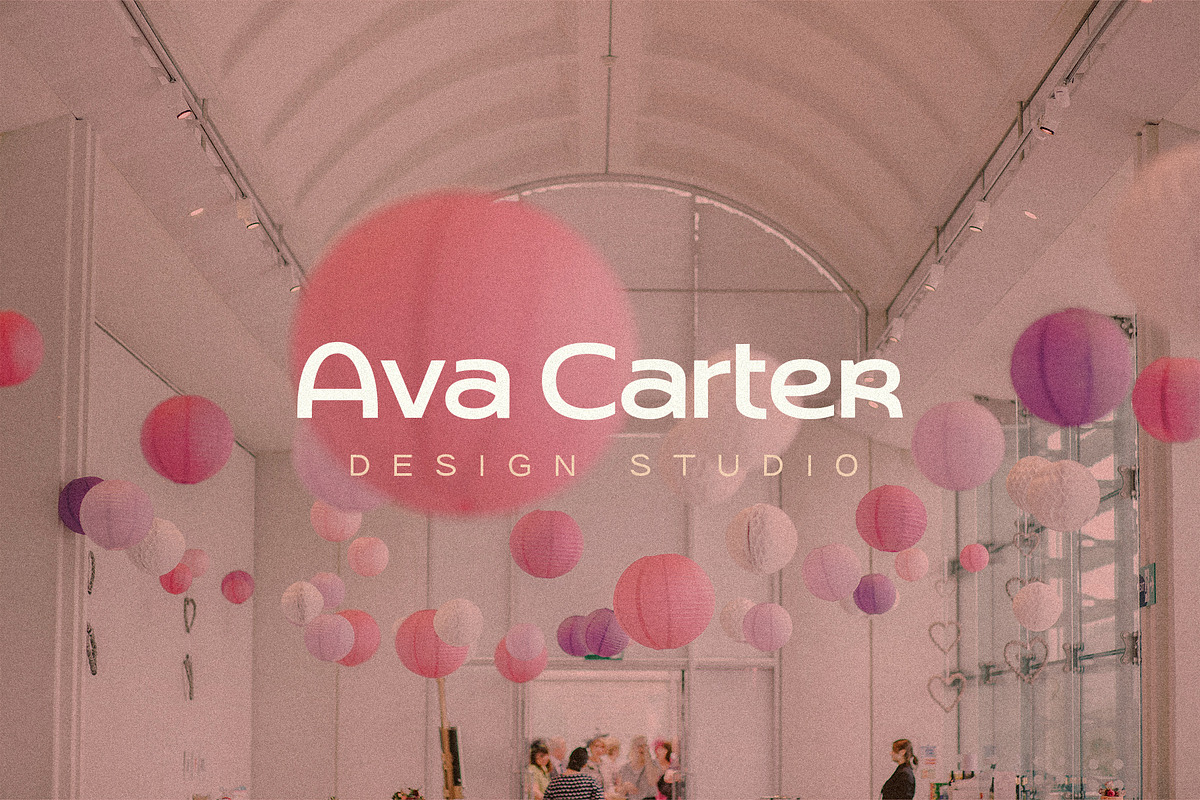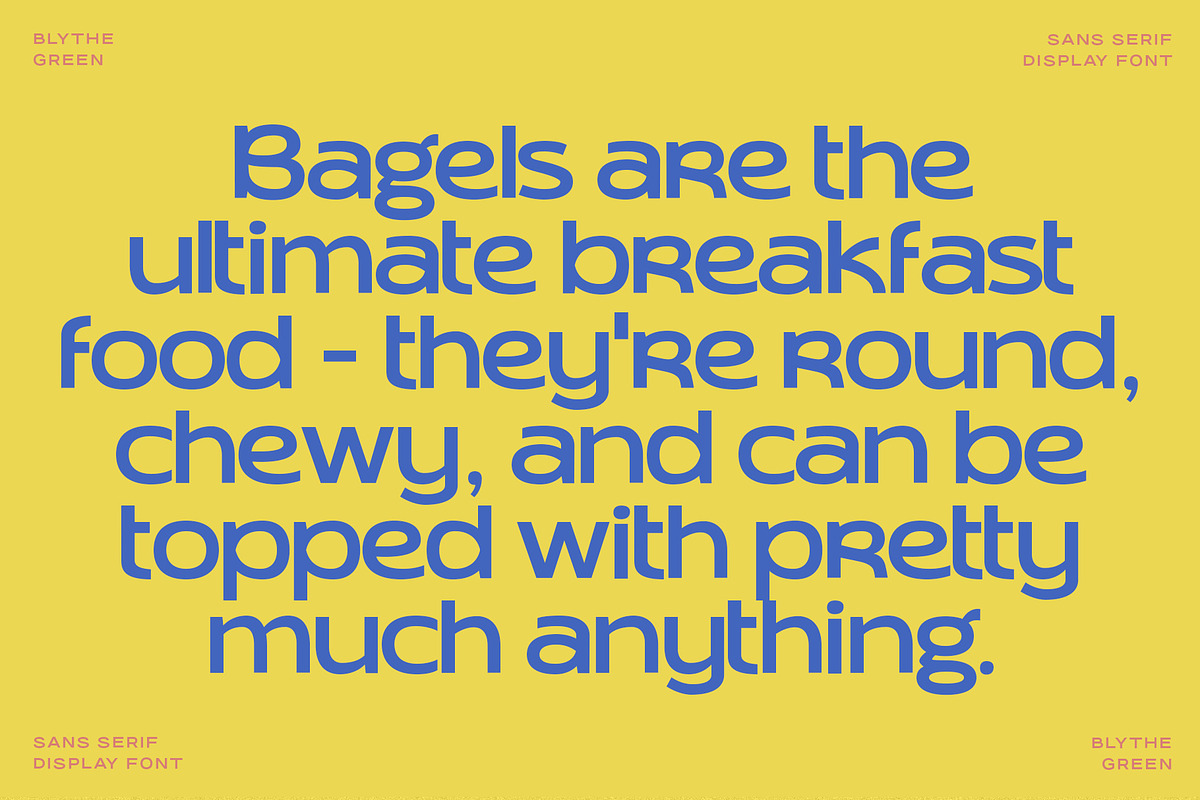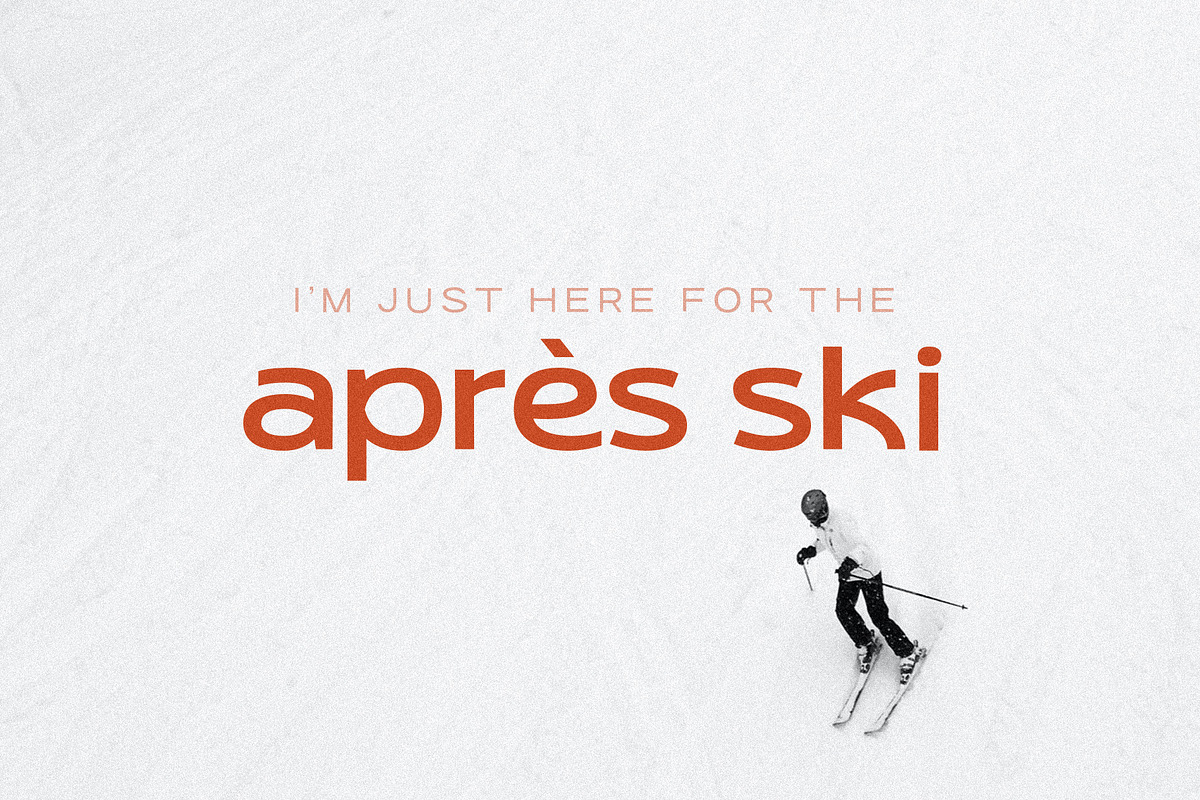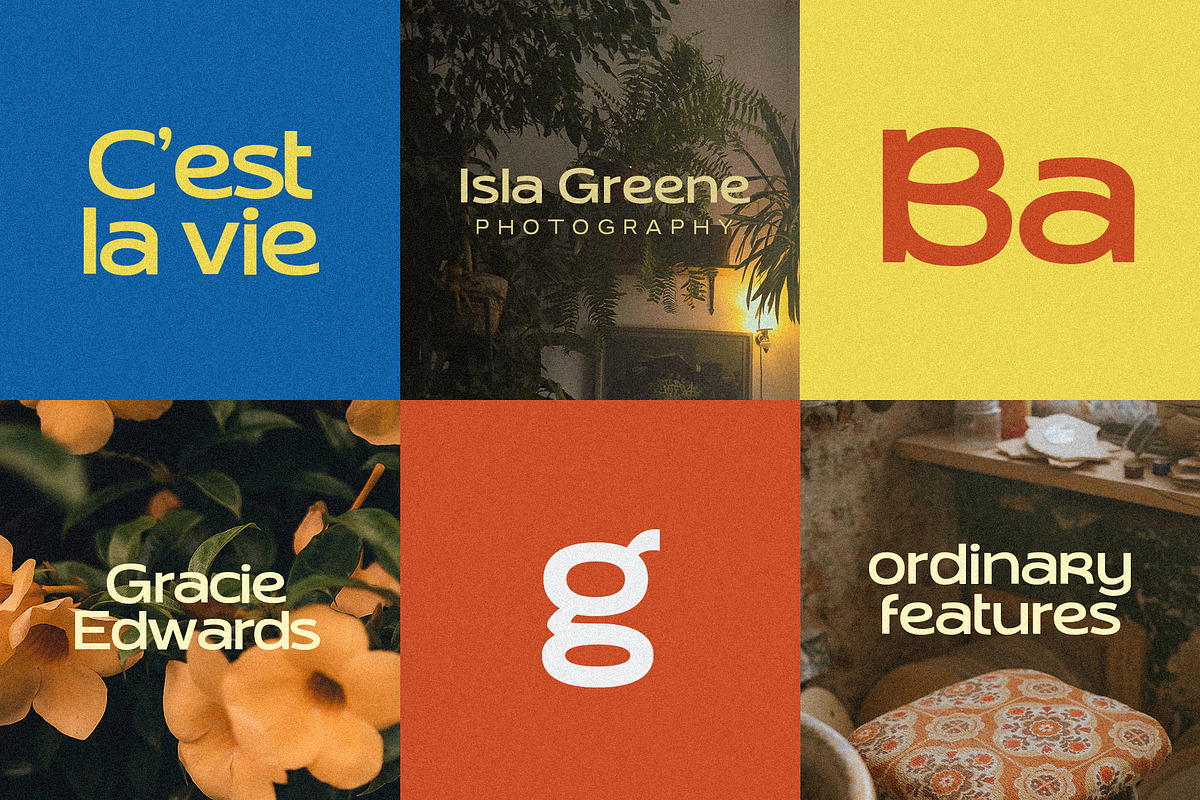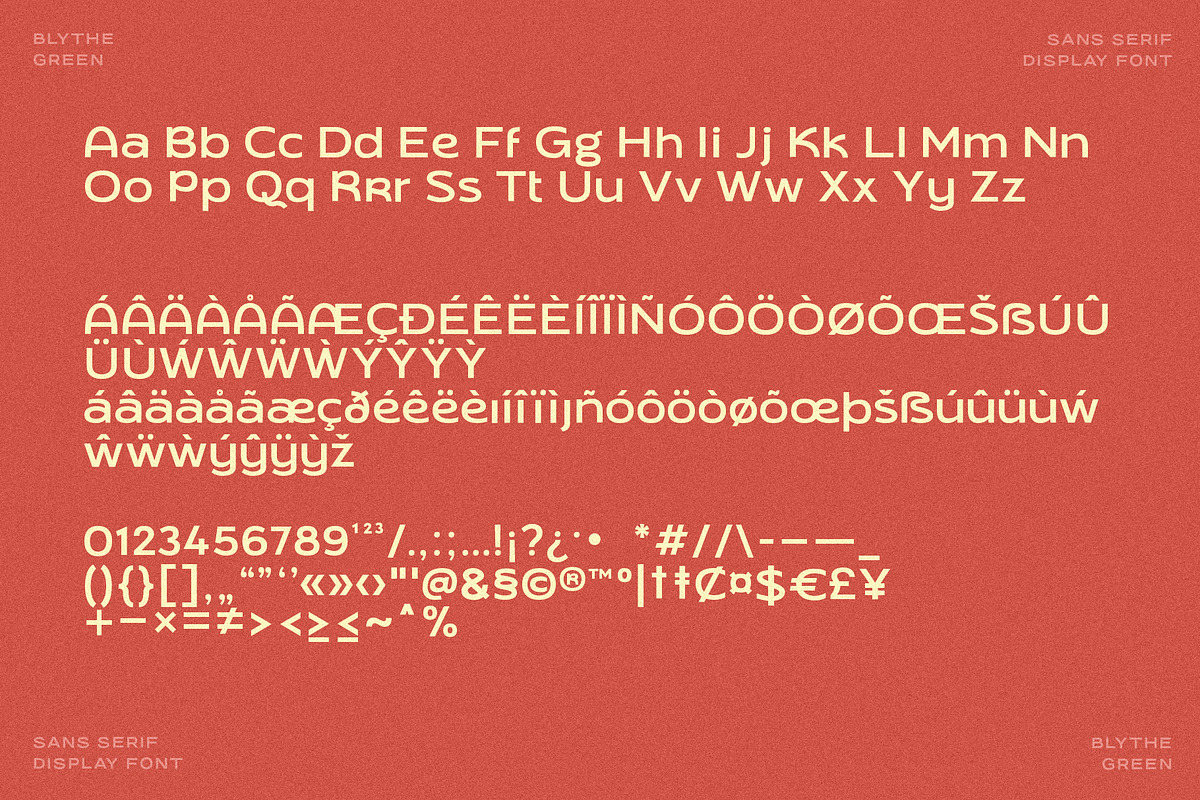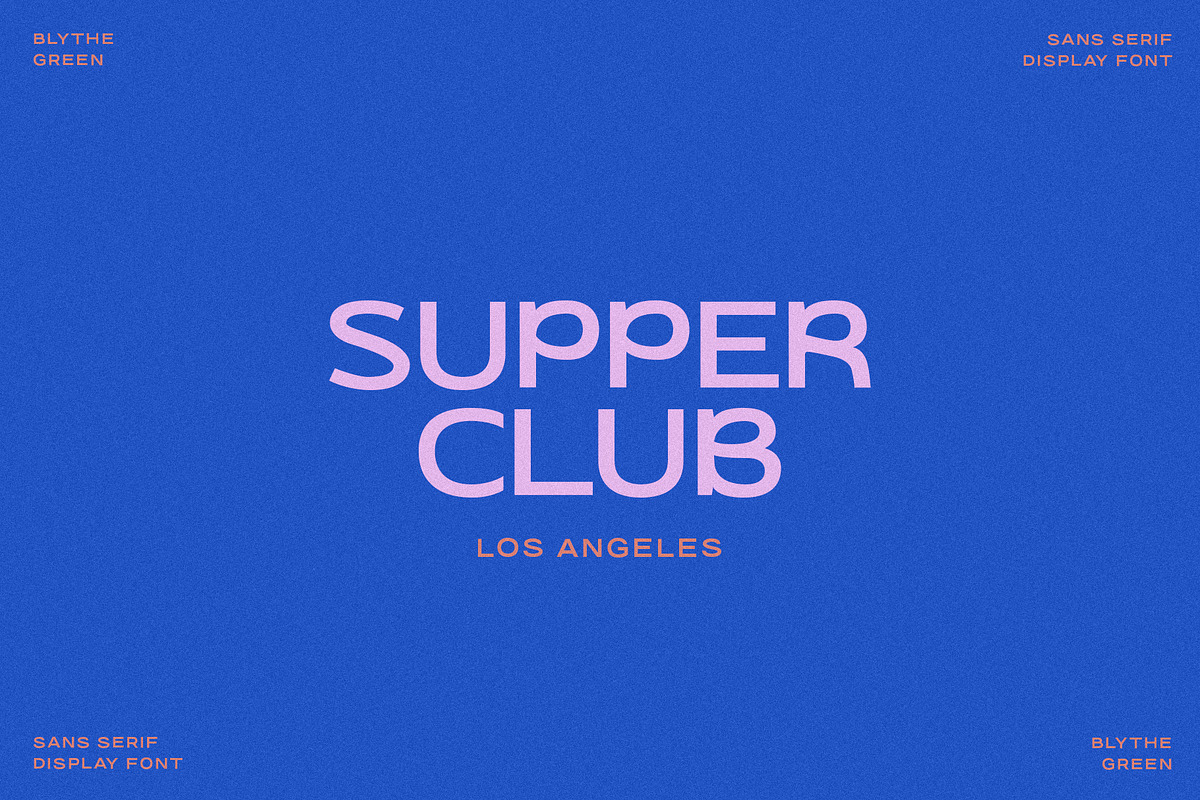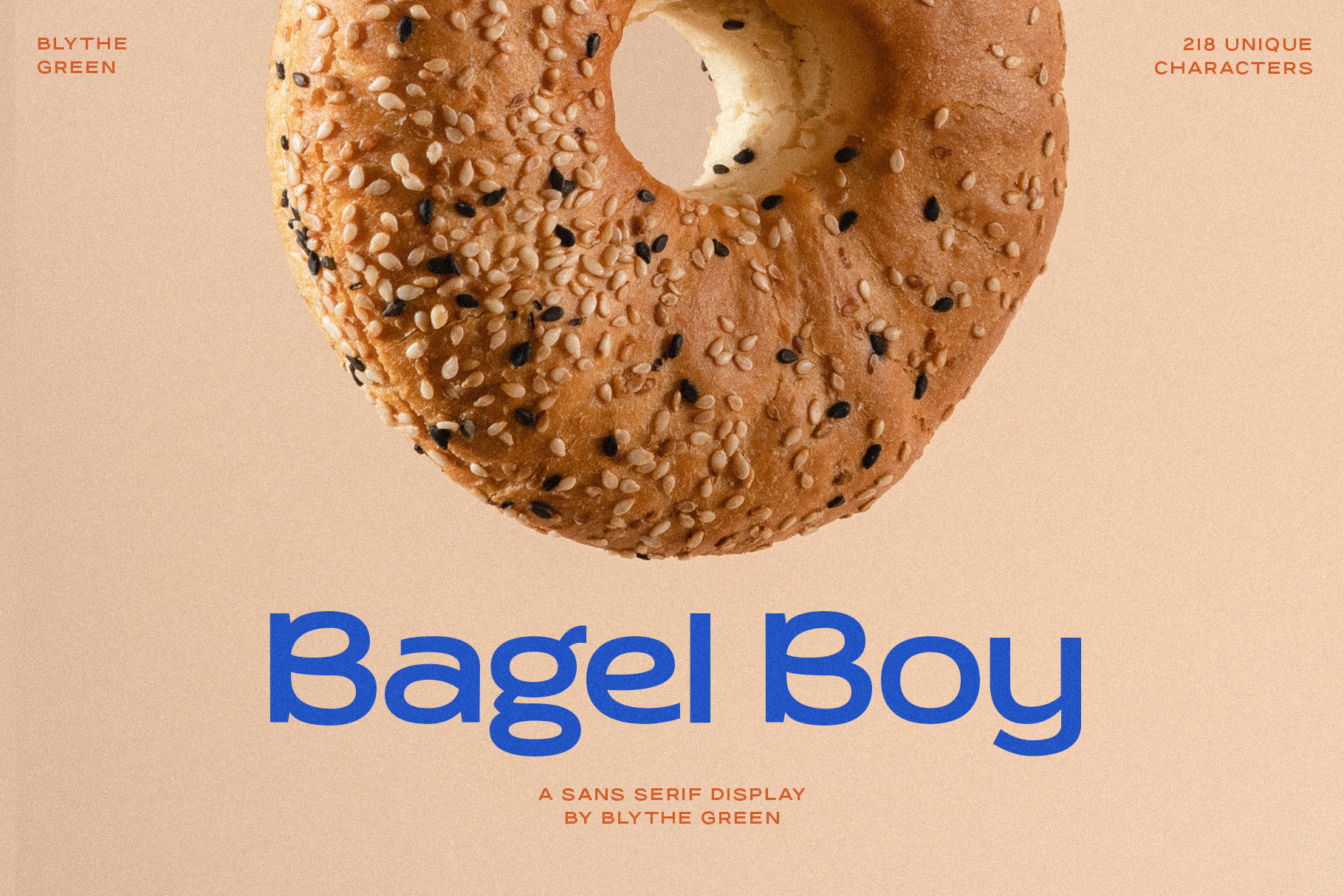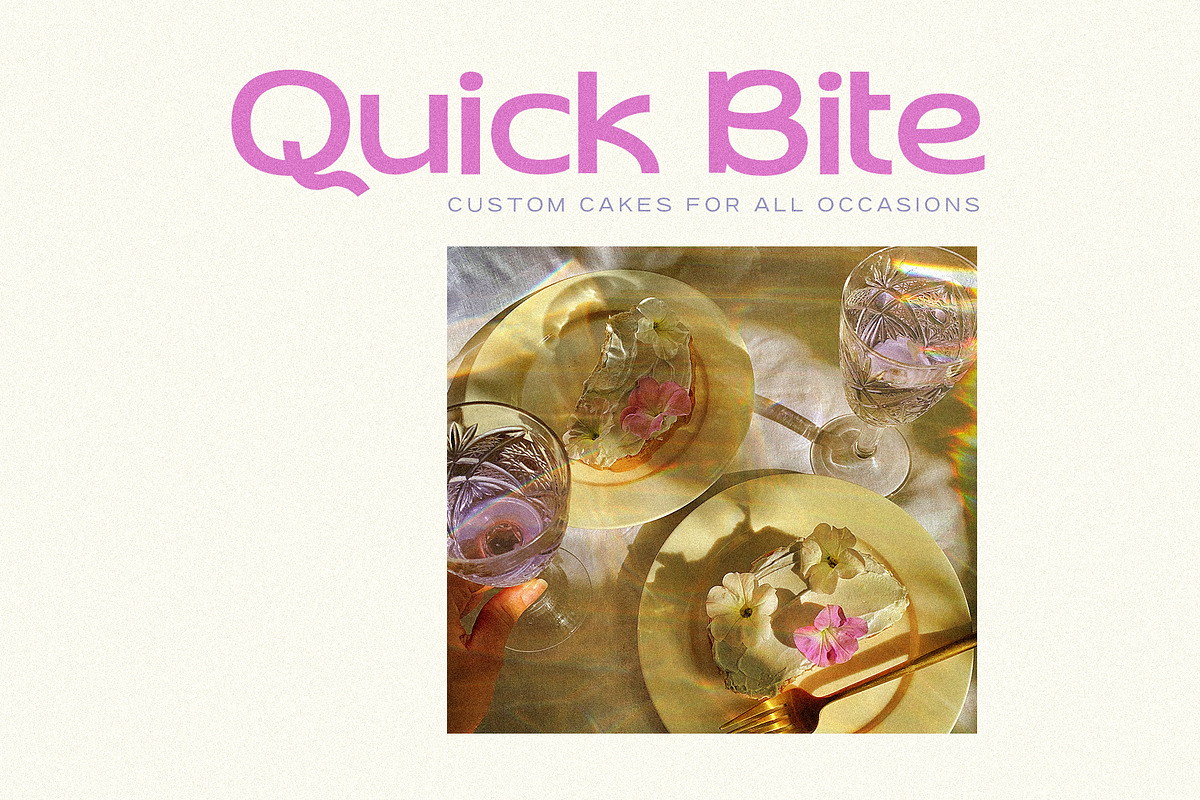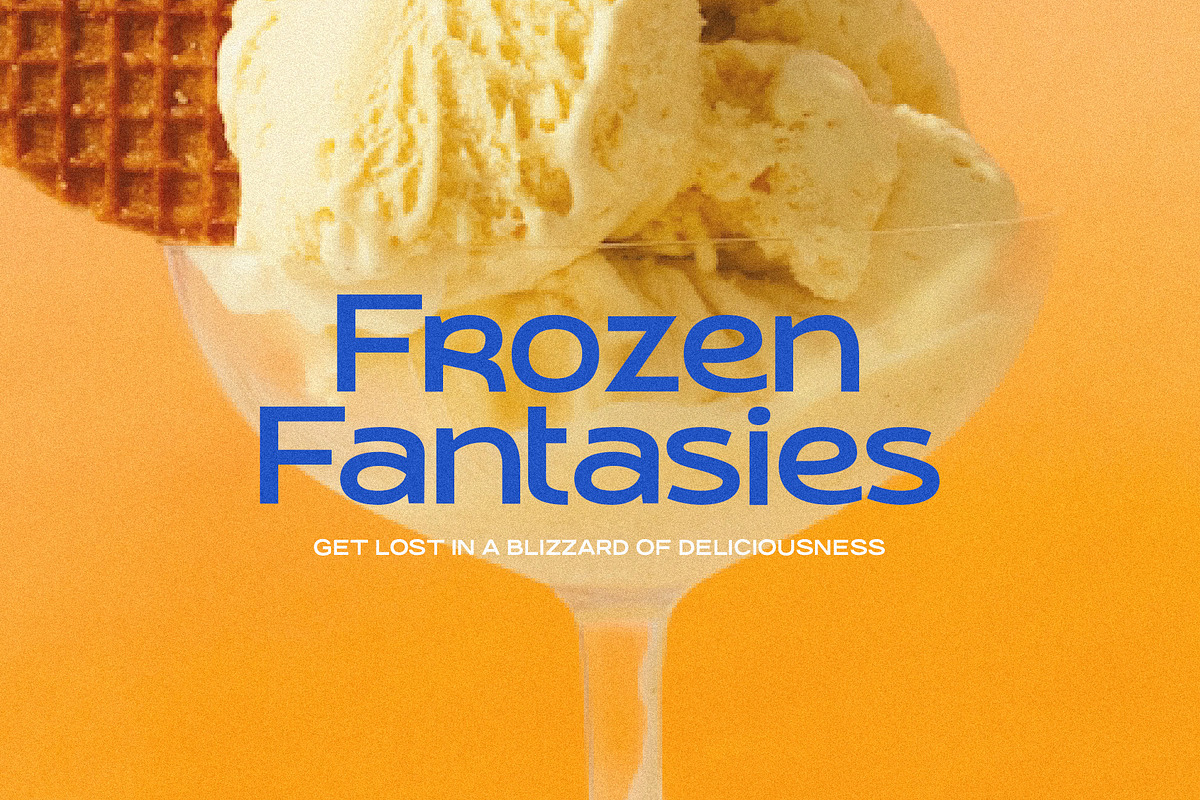
Bagel Boy | Sans Serif Display Font
Meet Bagel Boy: the funky sans serif display typeface perfect for headlines, logos, names, and quotes. Test it out below!